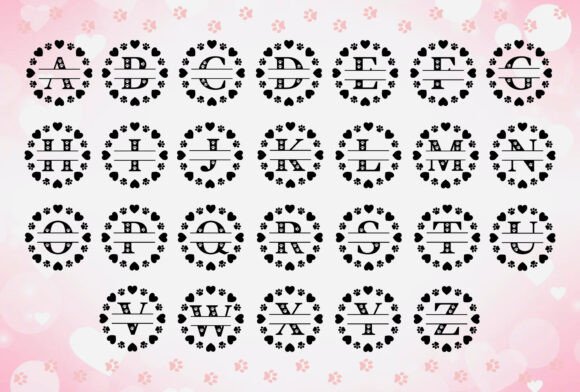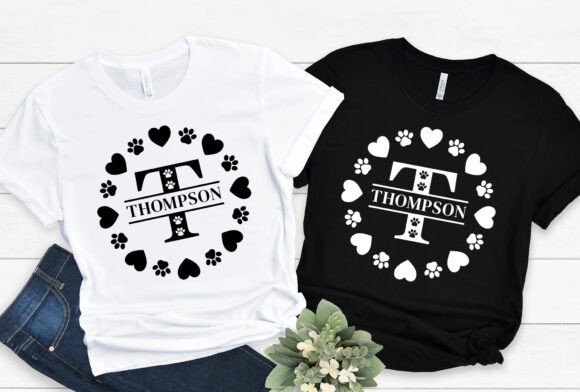
Introduction to Paw Heart Mongram Font
Paw Monogram is a dog-cat font inspired by Animal typography design with hearts for Valentine’s Day.
This bold and dynamic font captures the energy and excitement of Animals and sports games It features a strong, cute, and commanding look, with thick lines and sharp edges that convey power and athleticism.